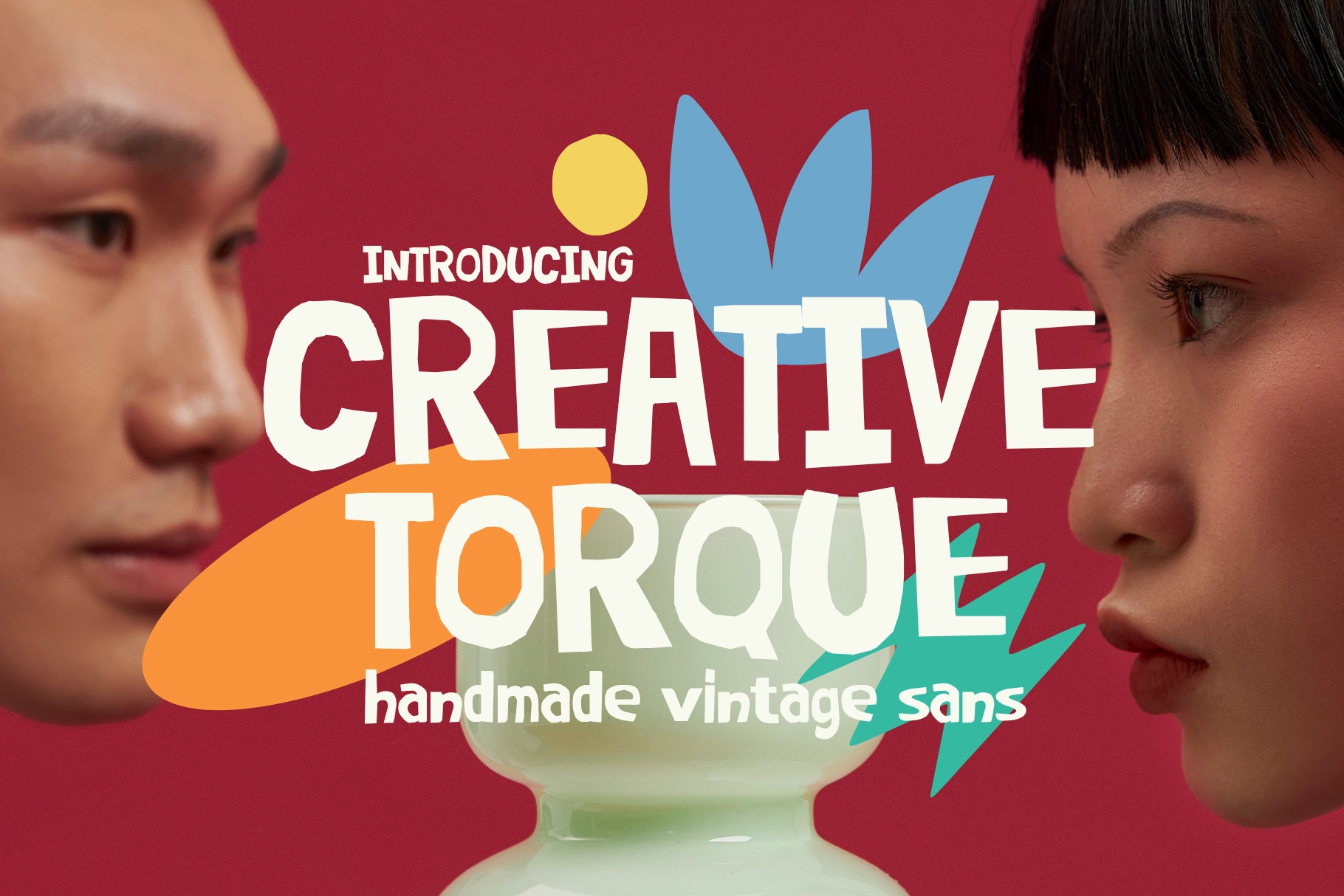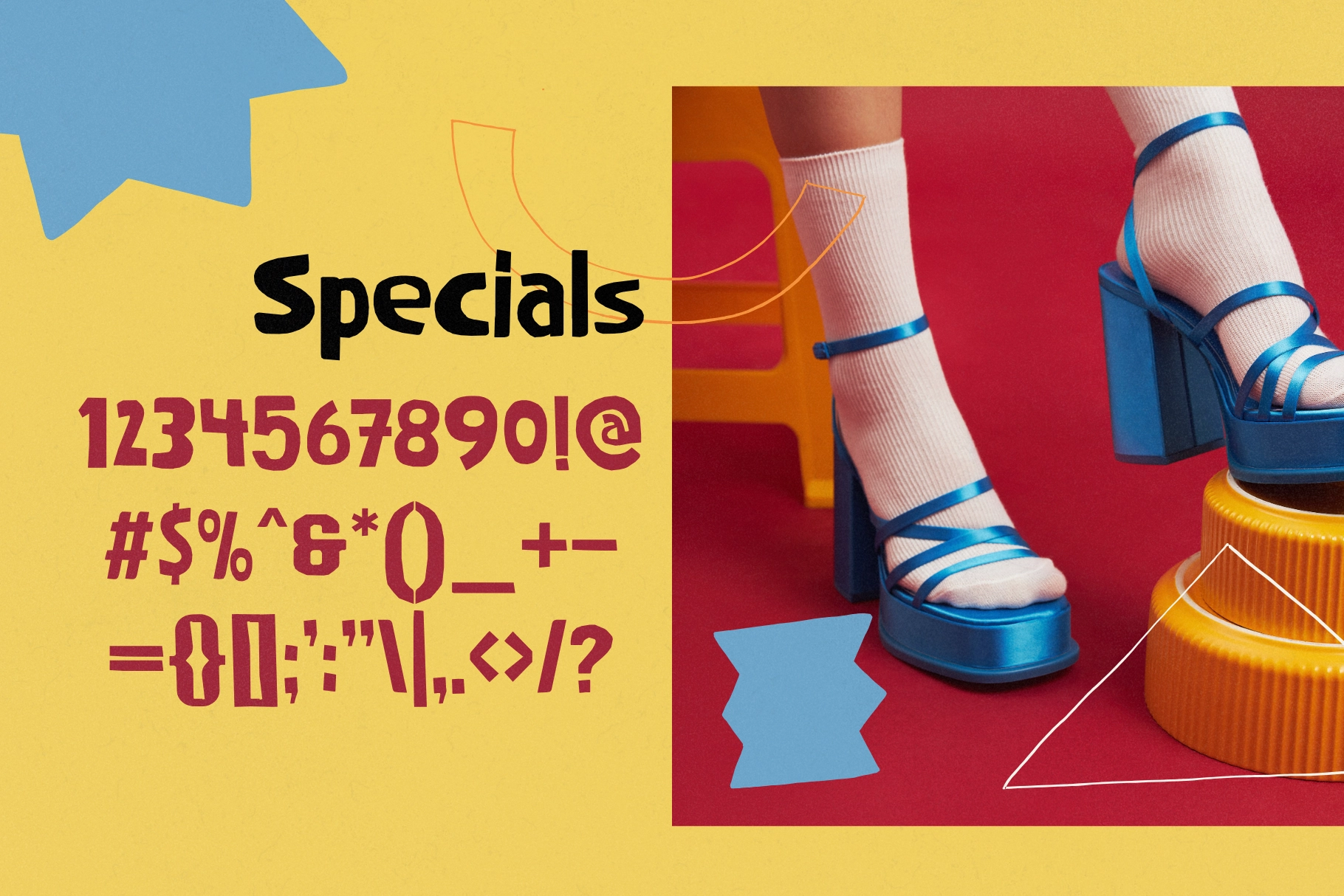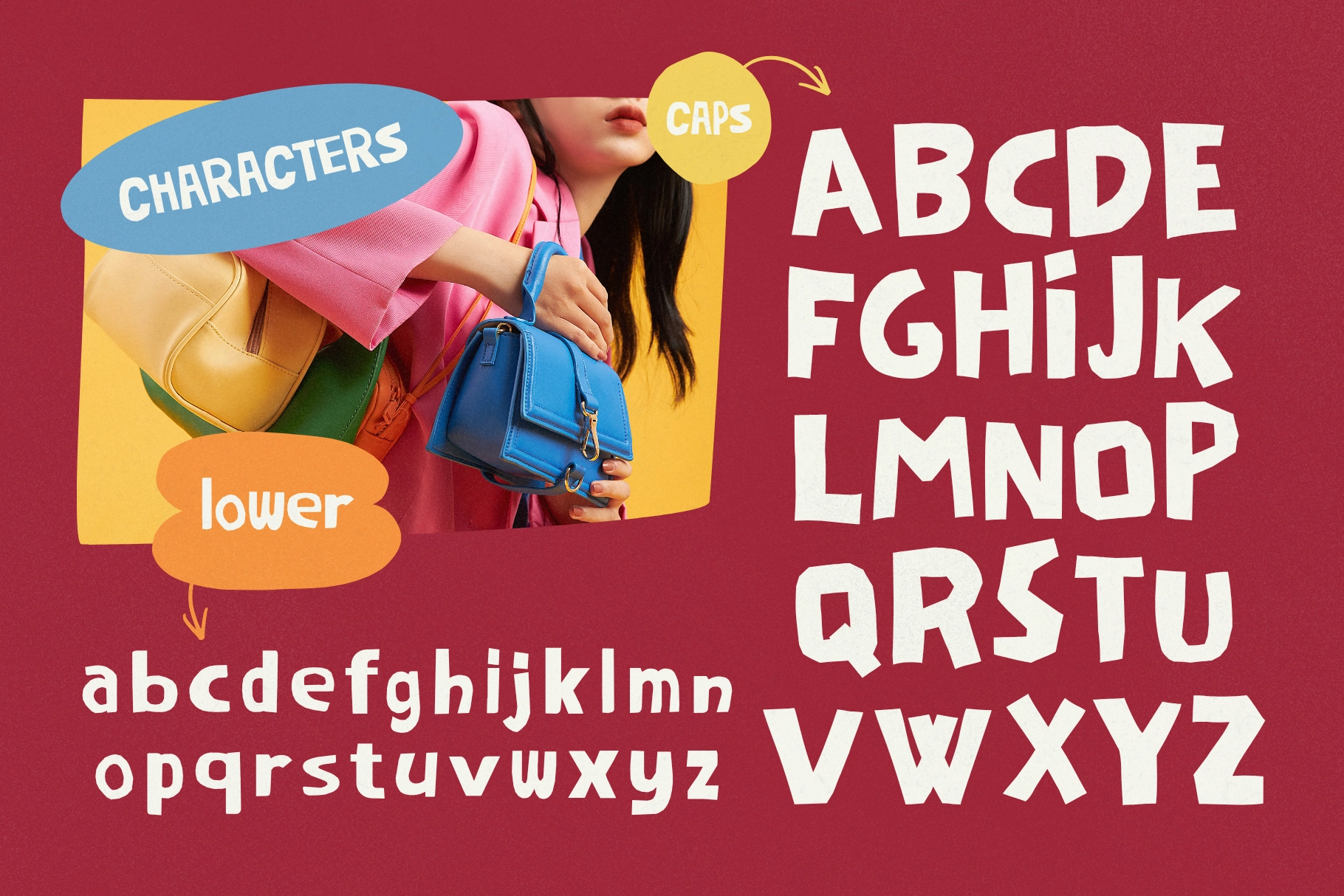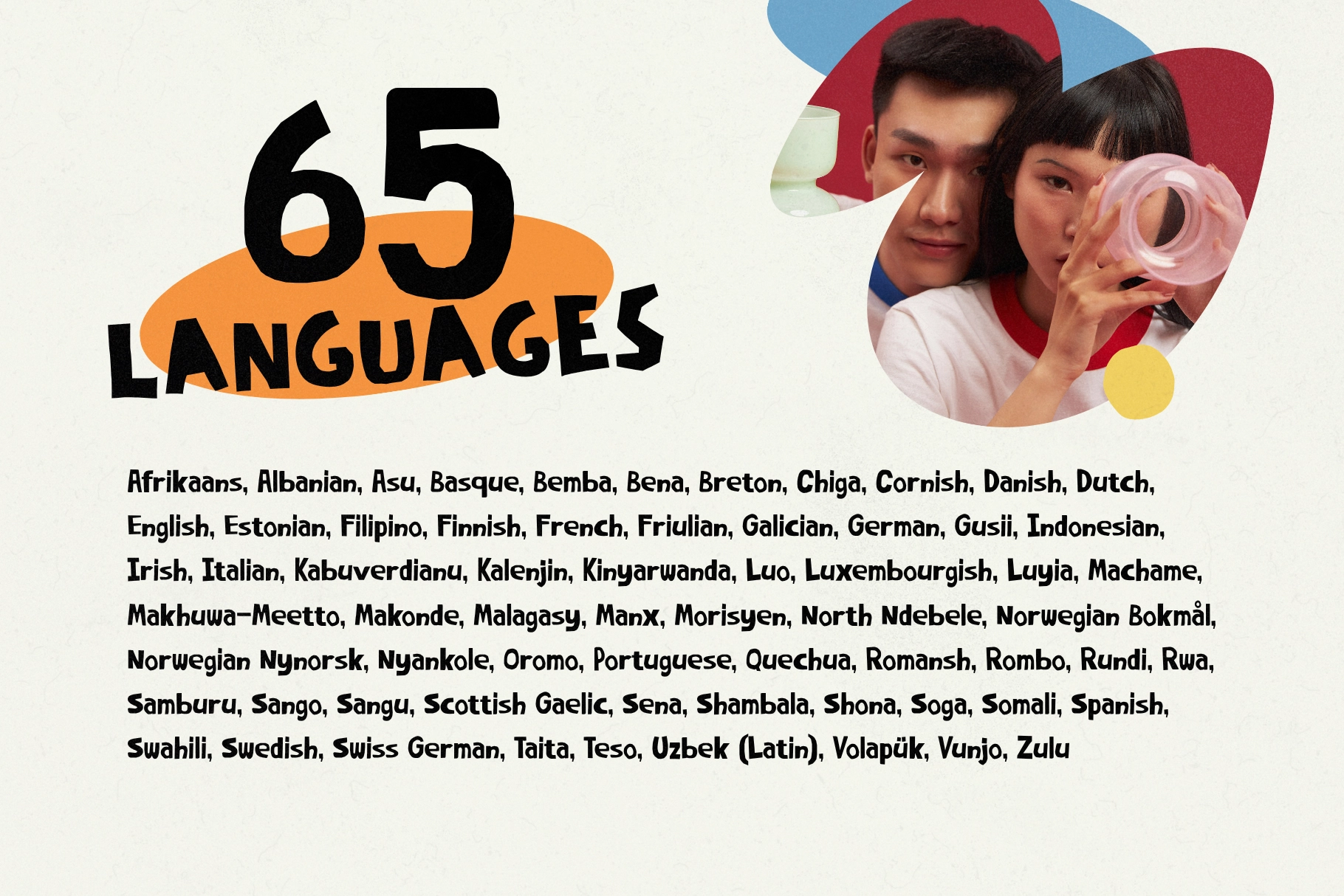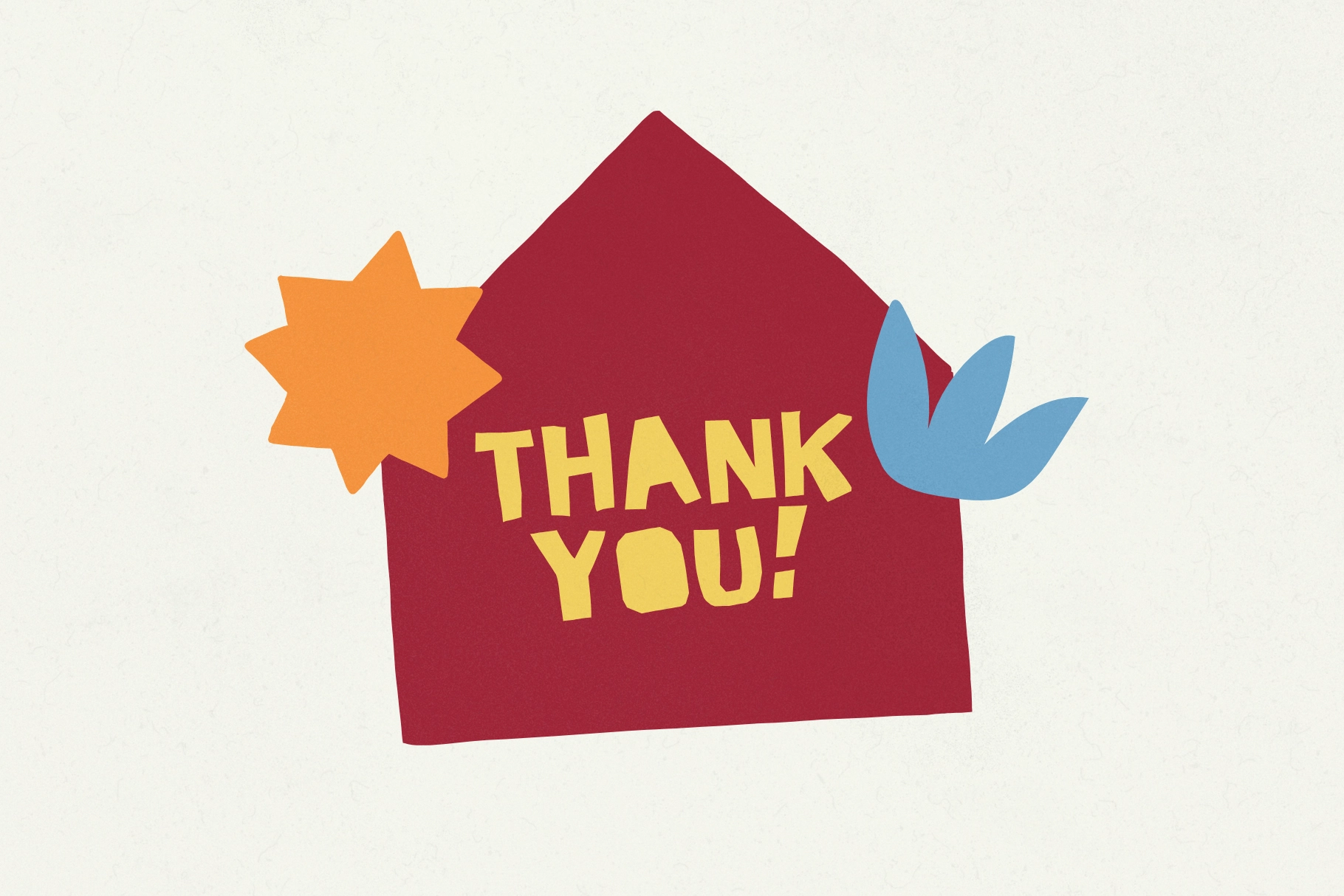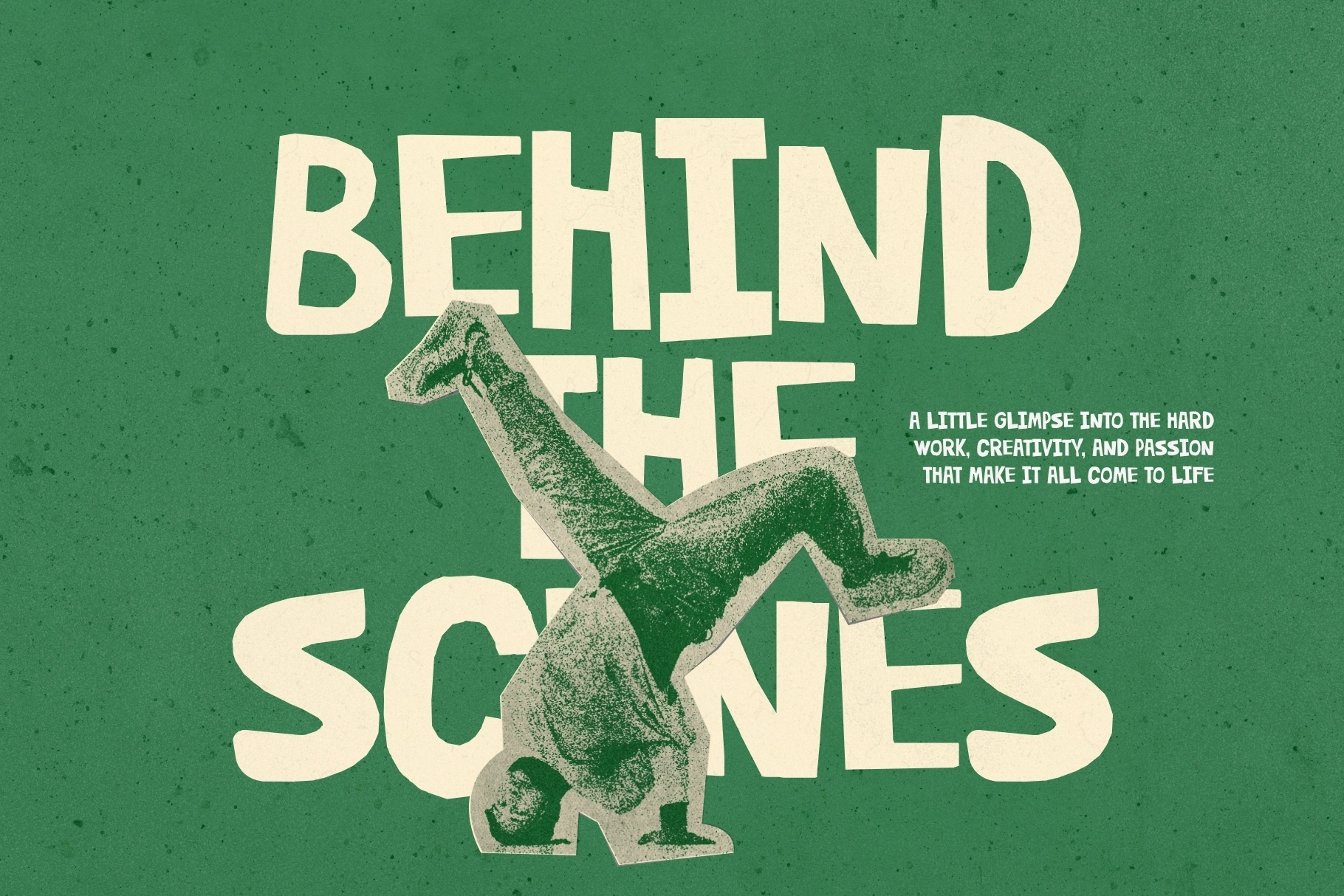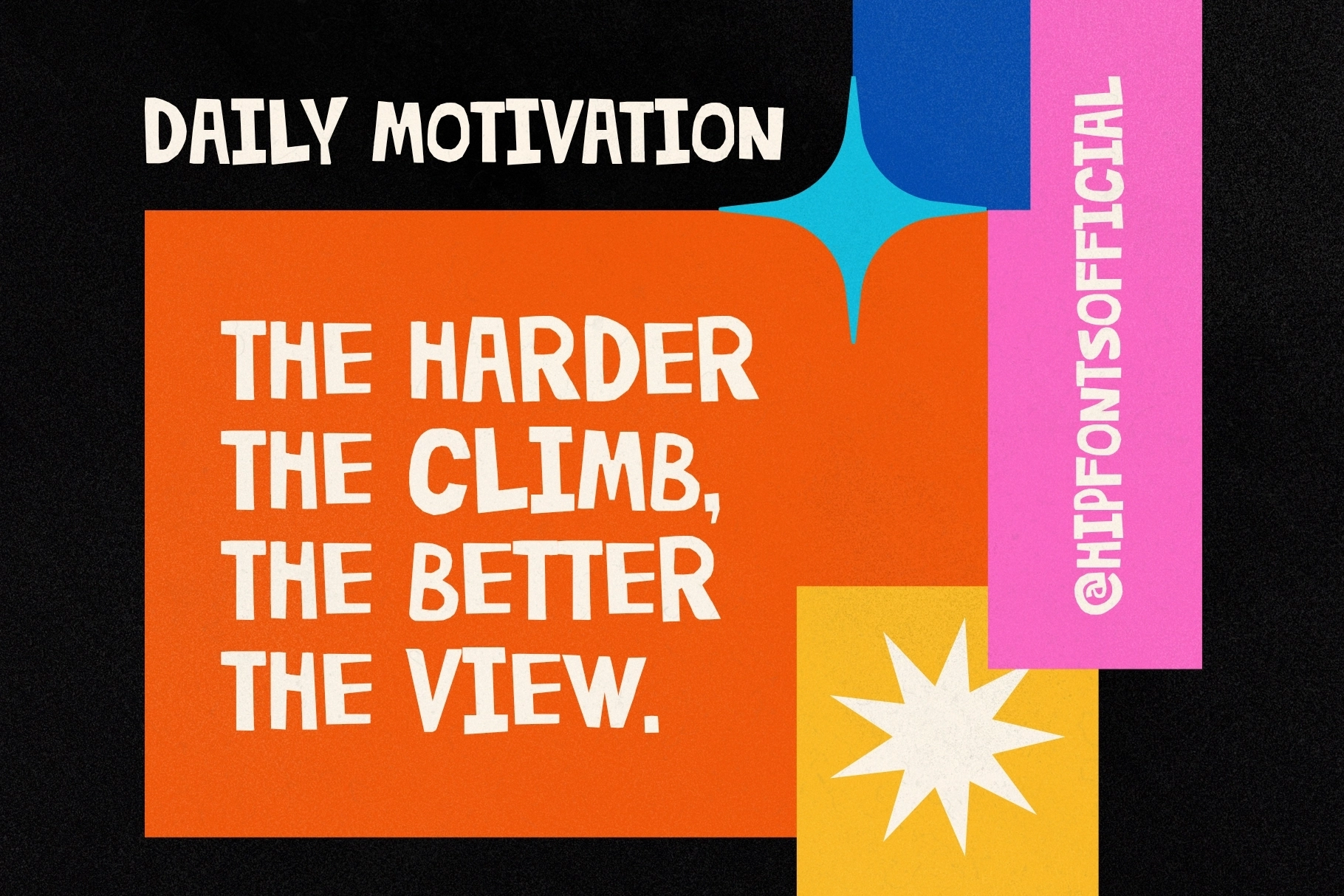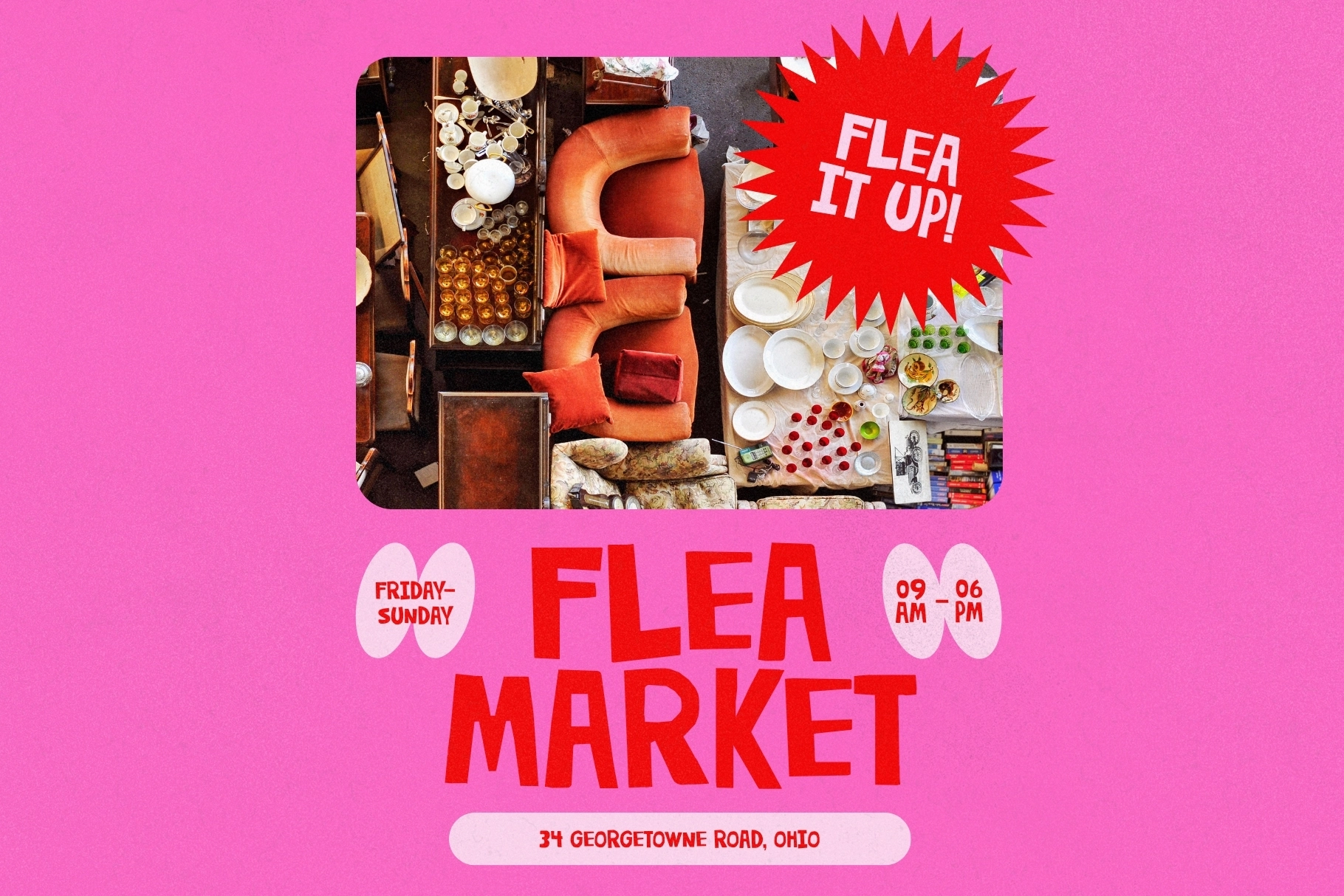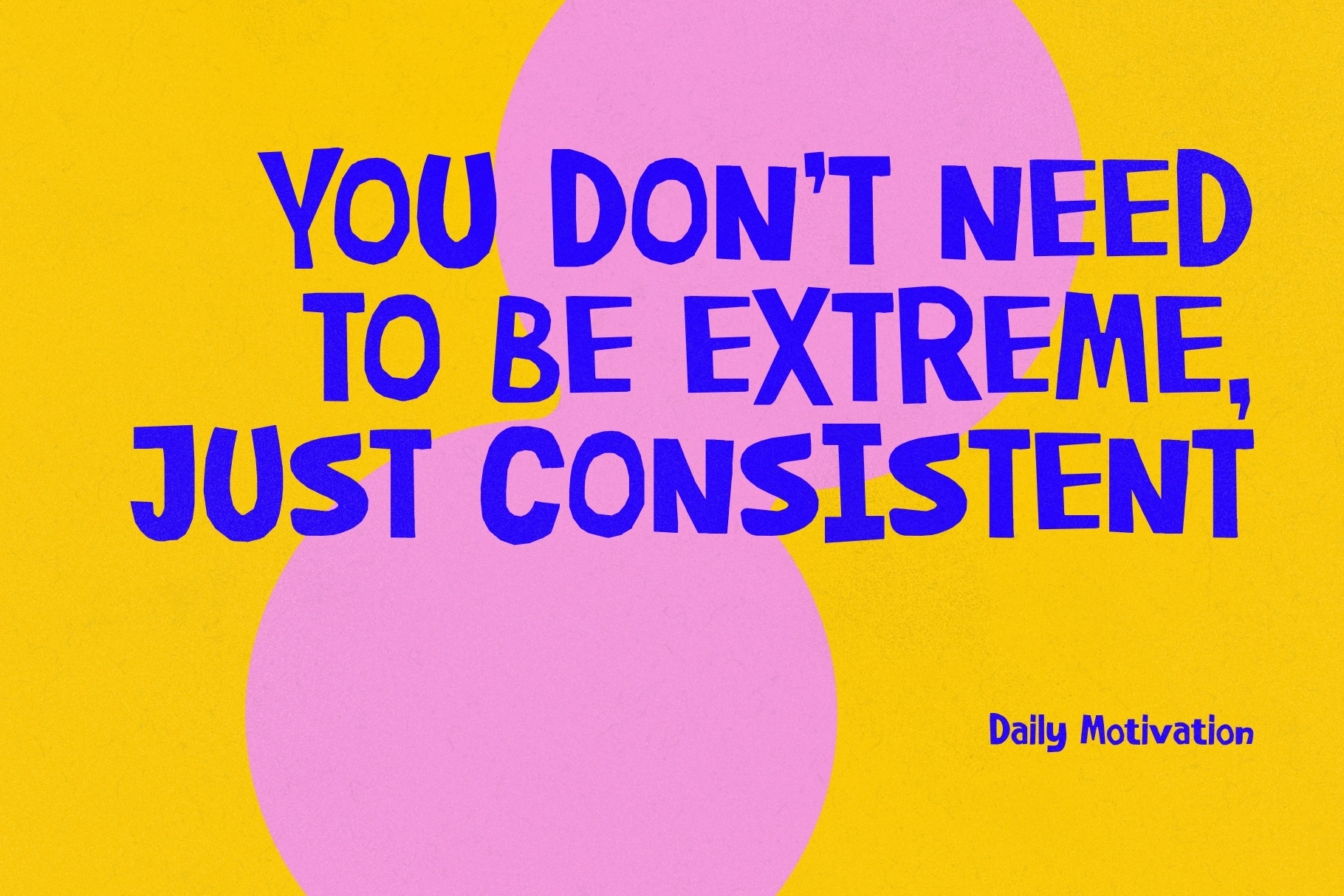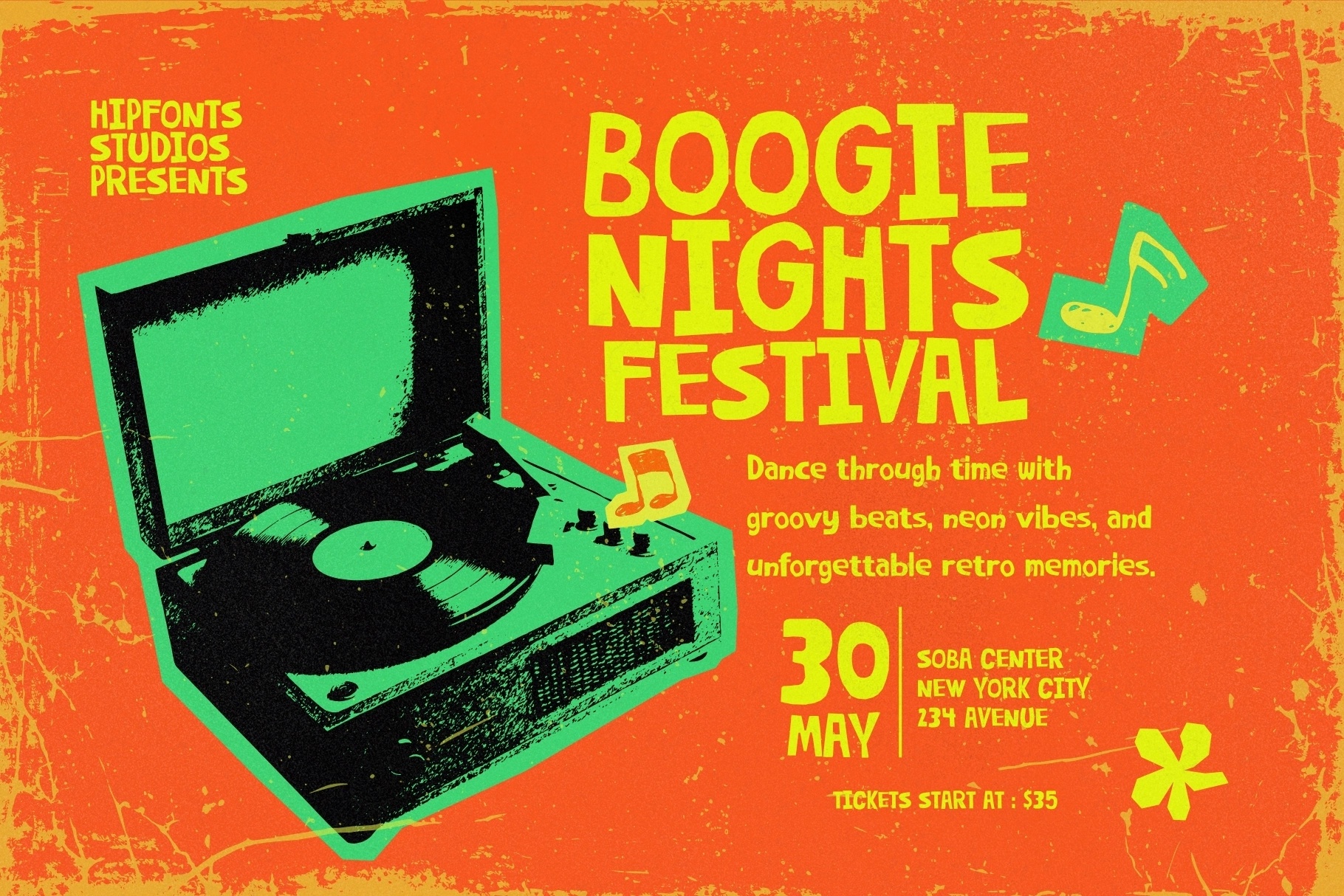
Creative Torque - Handmade Vintage Sans Font
Creative Torque
This handmade display sans has uneven cuts, chunky shapes, and playful letter spacing with a friendly vintage snap. The all-caps forms are bold and poster-ready, while the lowercase keeps the same quirky rhythm for longer lines, captions, and brand copy.
Creative Torque is a good fit for event flyers, bold headlines, music posters, food packaging, children’s projects, apparel graphics, album covers, social media posts, editorial layouts, quote cards, creative branding, stickers, merch prints, and campaign visuals. Its rough edges and offbeat proportions add human character without making the text hard to read — a rare win for typography with this much personality.